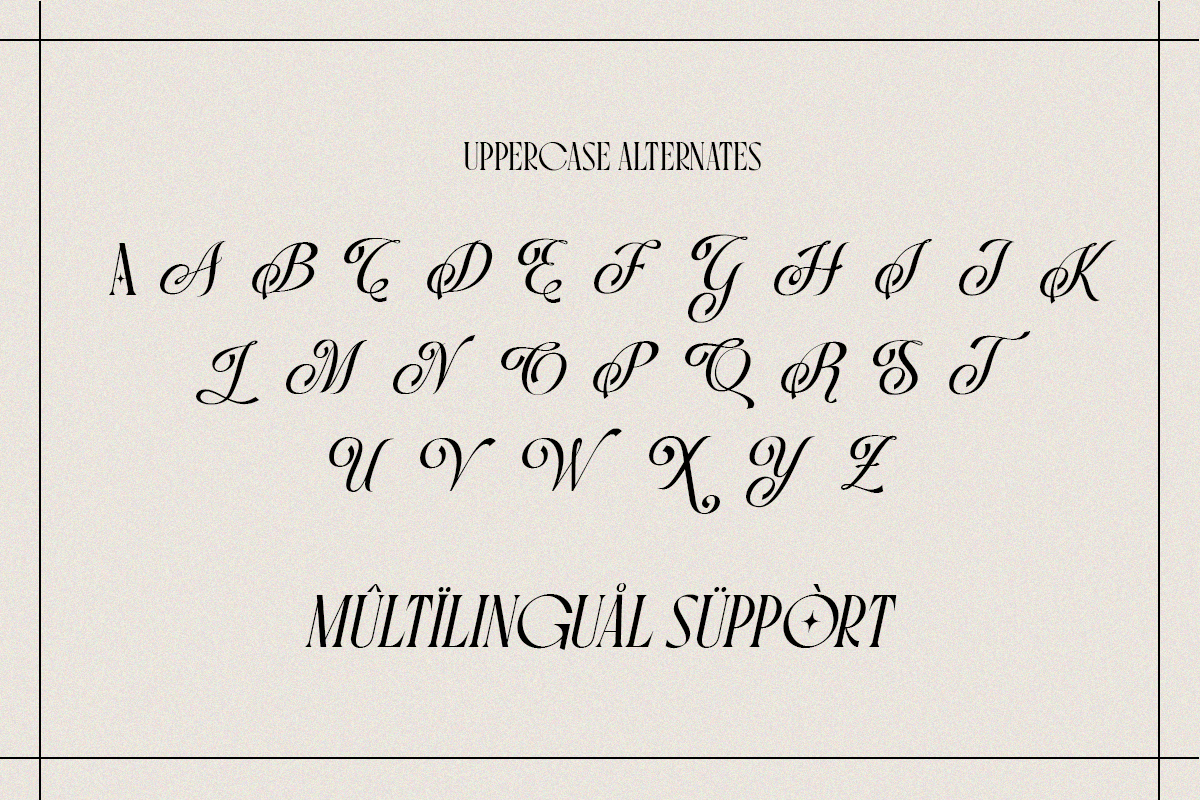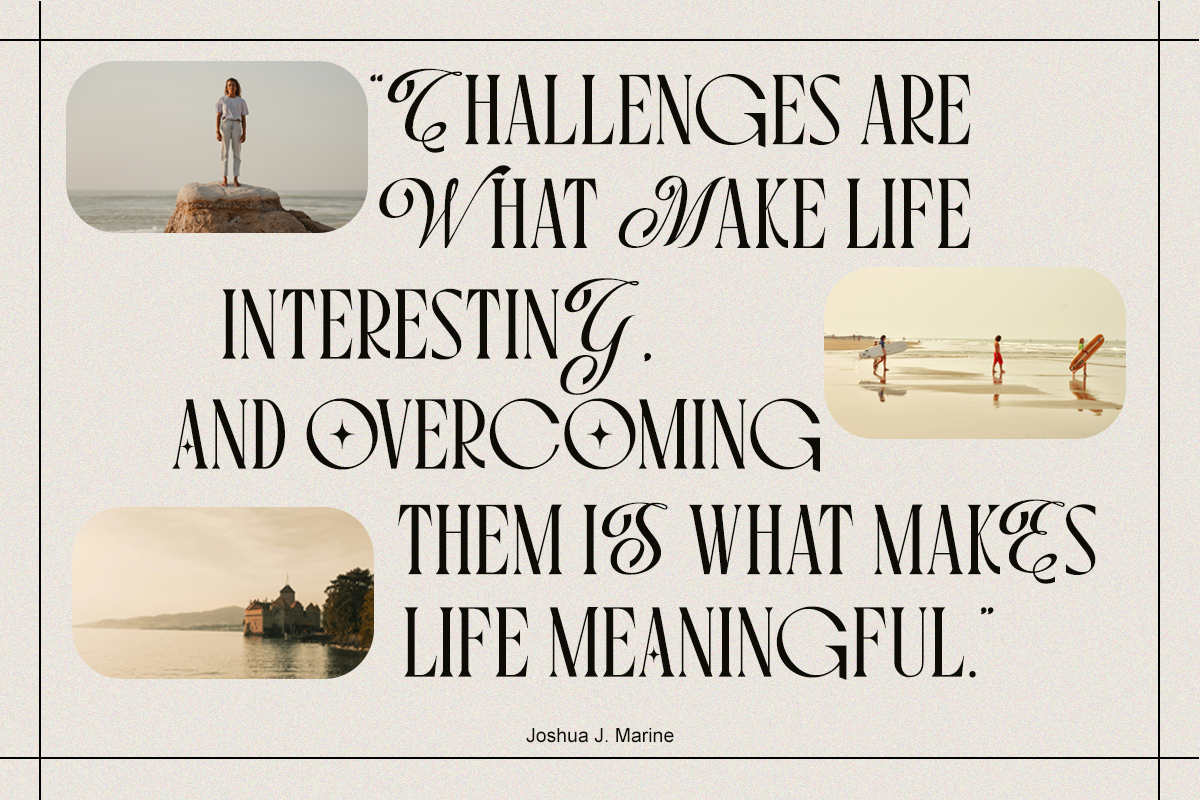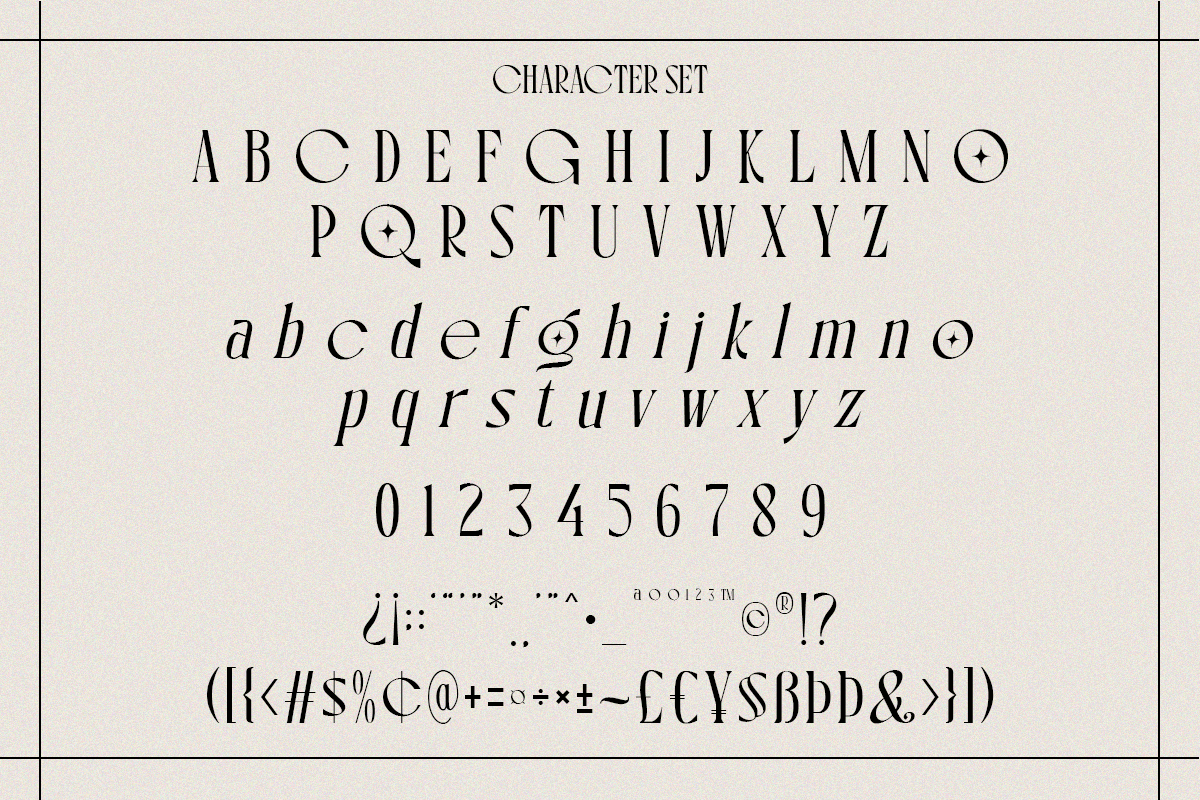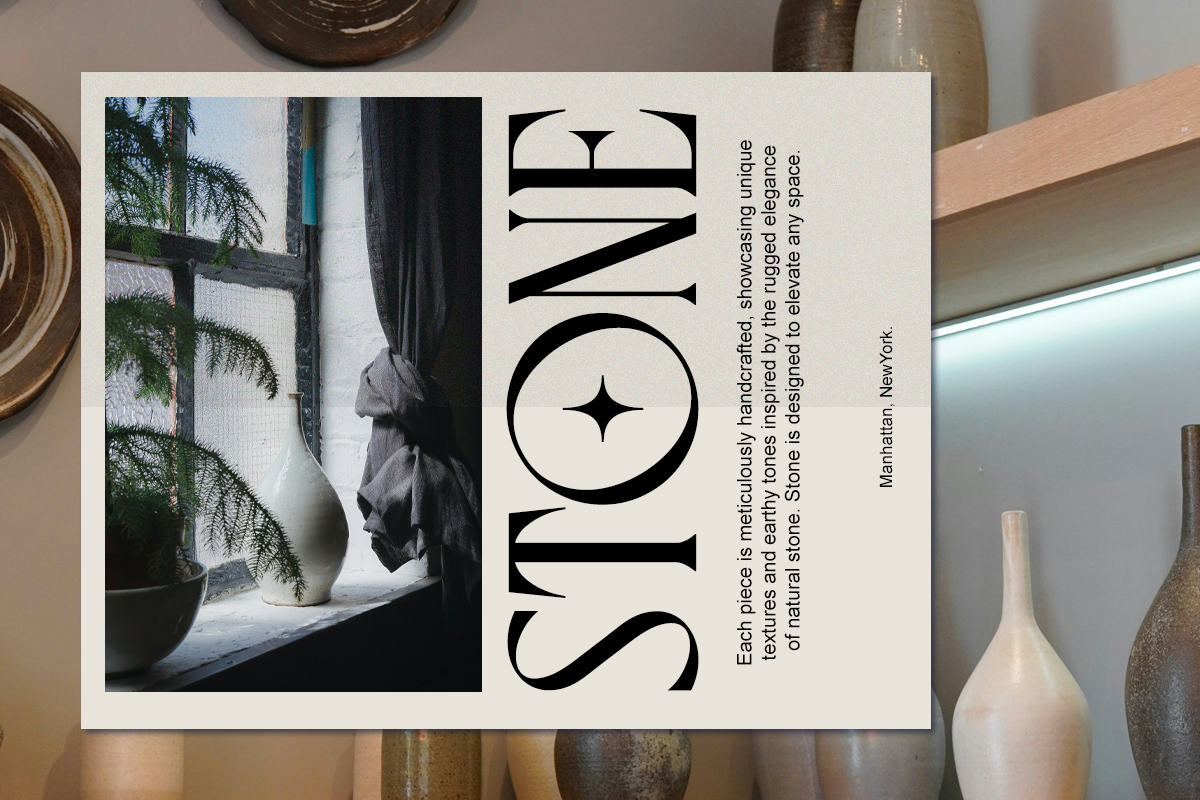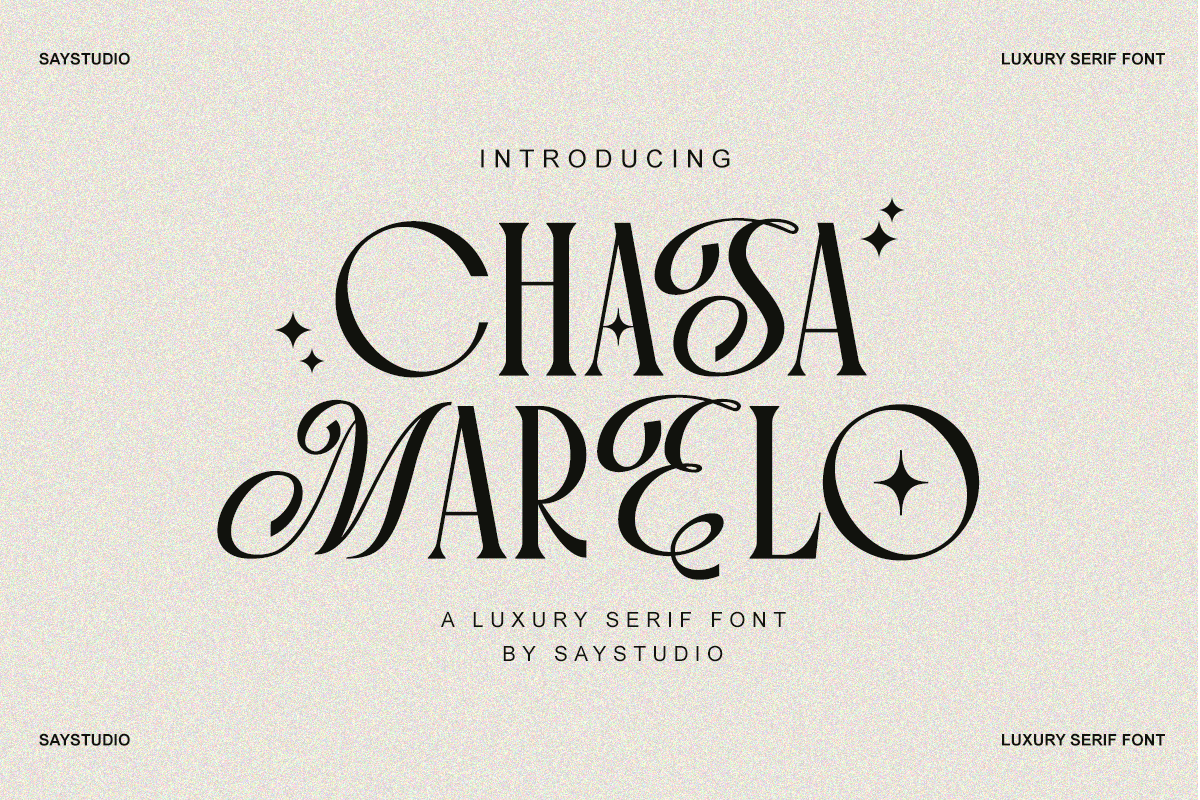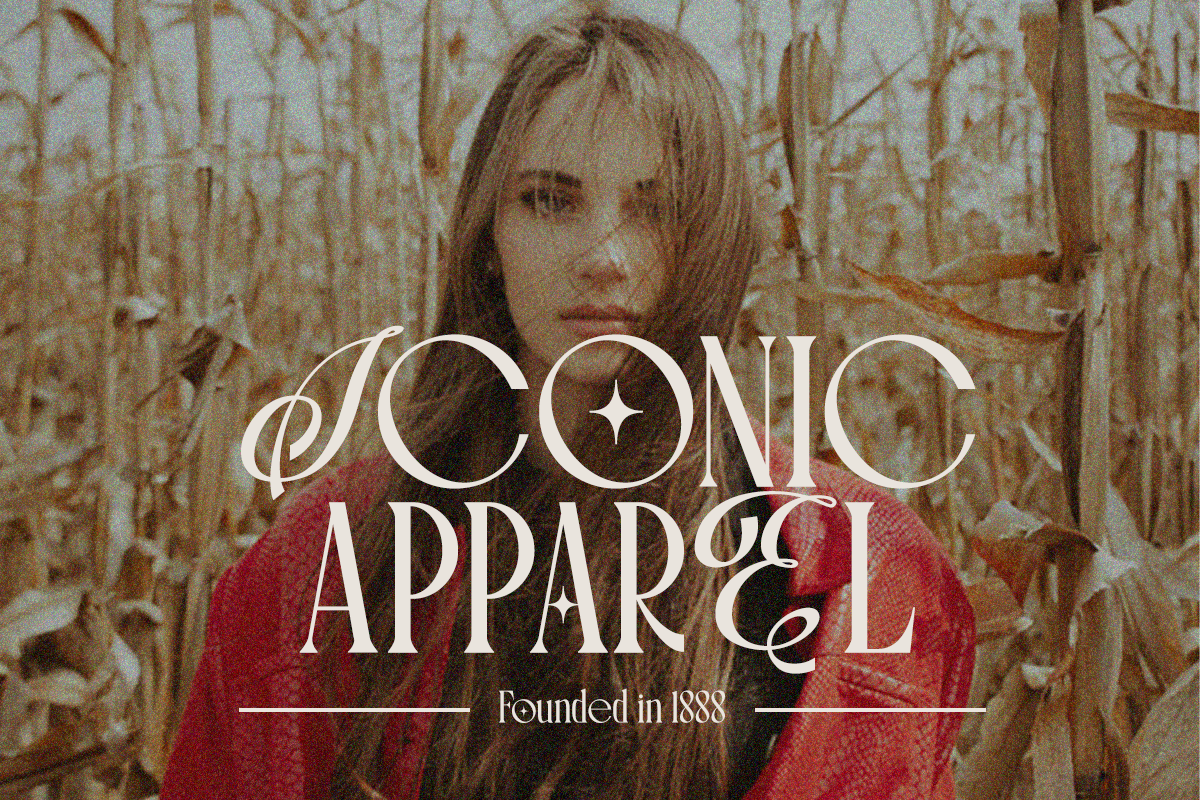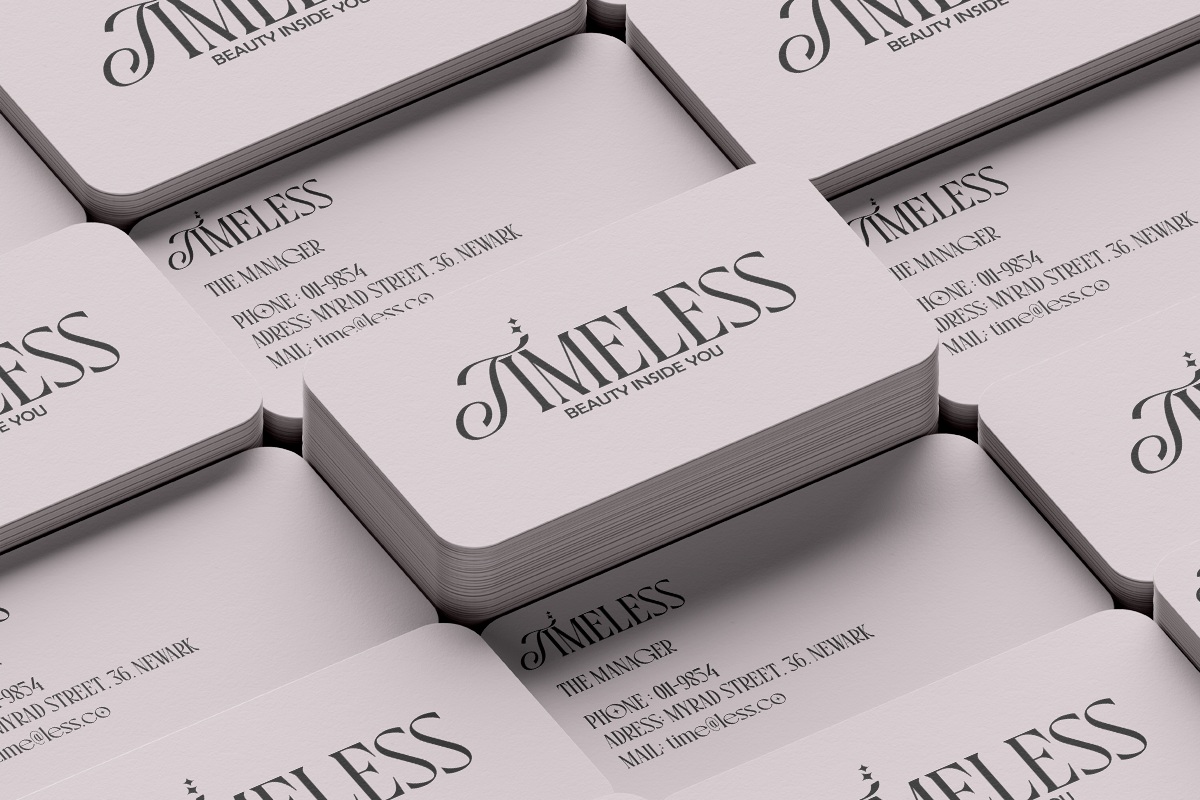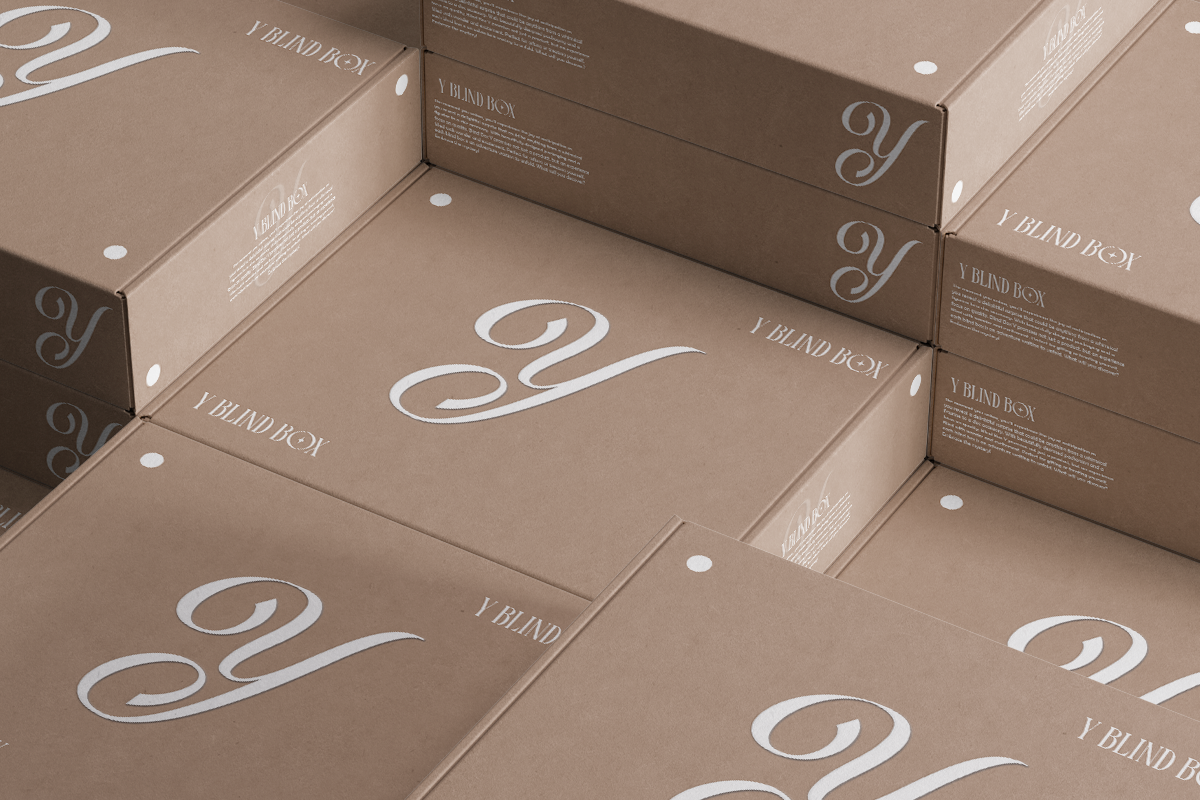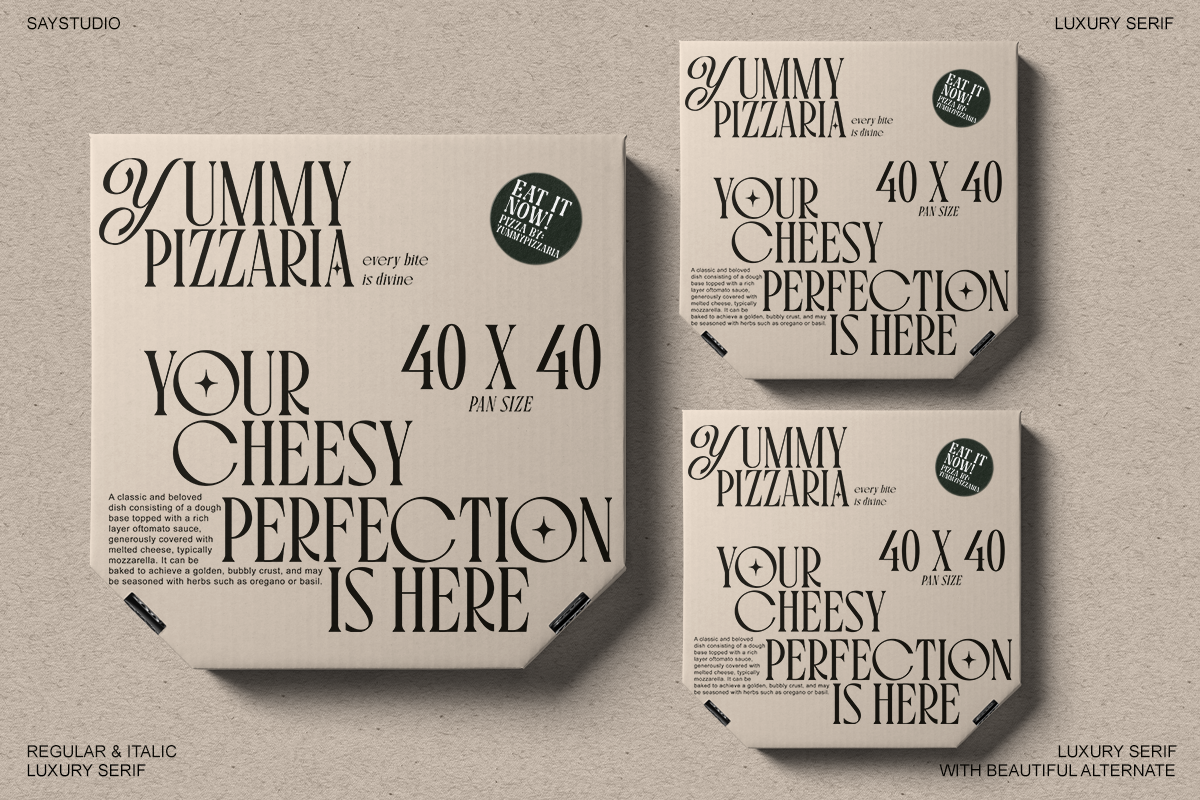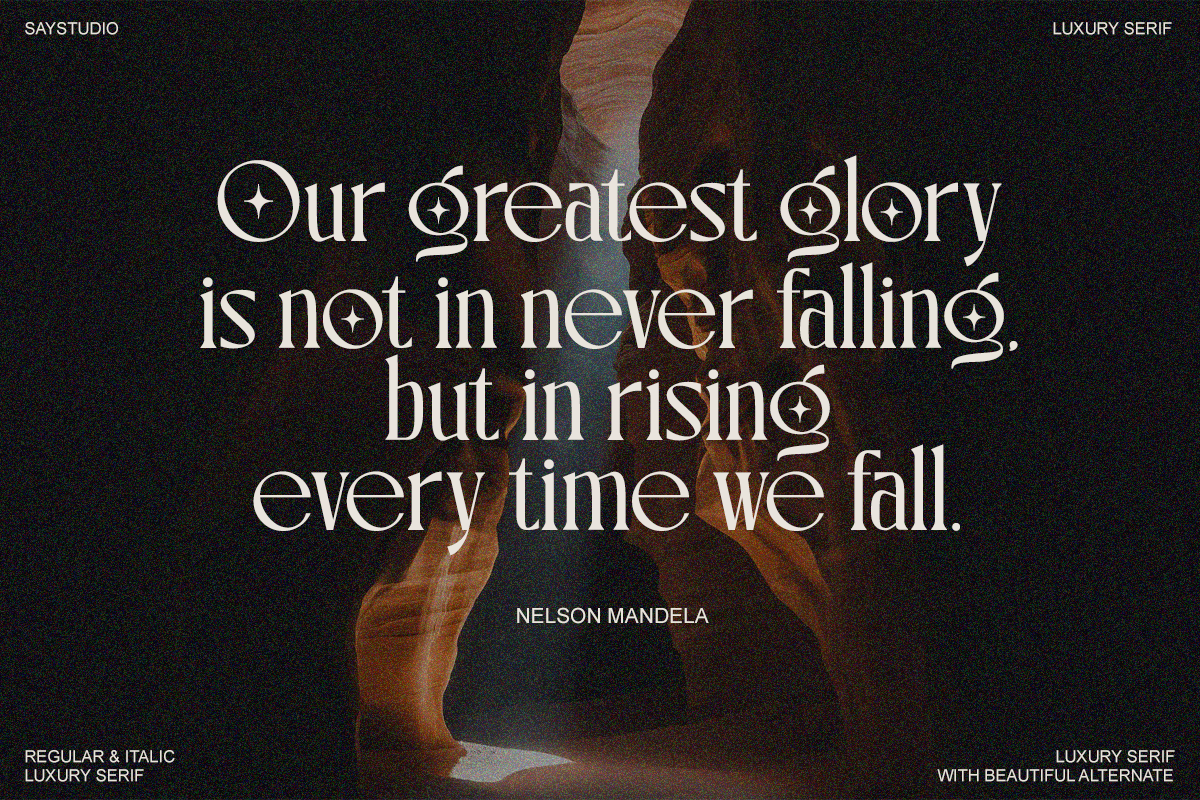
Chasa Marelo - Luxury Branding Font
Chasa Marelo is a brand new, Luxury Serif Font. The main font is a serif, which in regular and alternates uppercase looks cool, chic & fashionably elegant. It also includes beautiful uppercase alternates, full language support, punctuation and numerals. I invite you to check out the preview images and hope you will be immersed in my vision for Chasa Marelo, a luxury serif typefont that beautifully balances classic charm and beautiful innovation, making it your new go-to choice for all the interesting projects you might be working on this year.